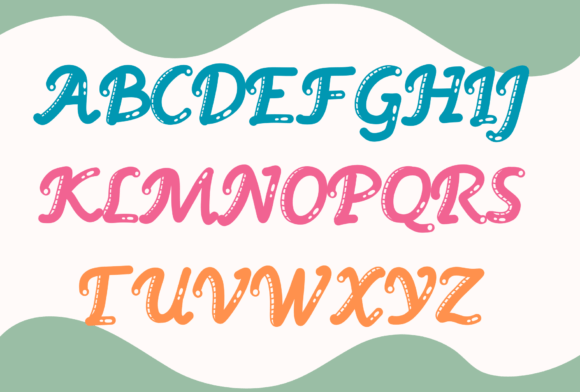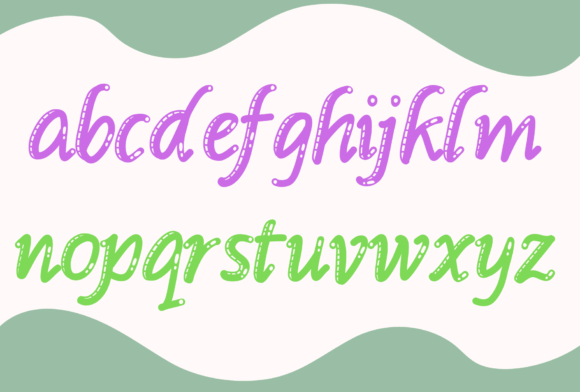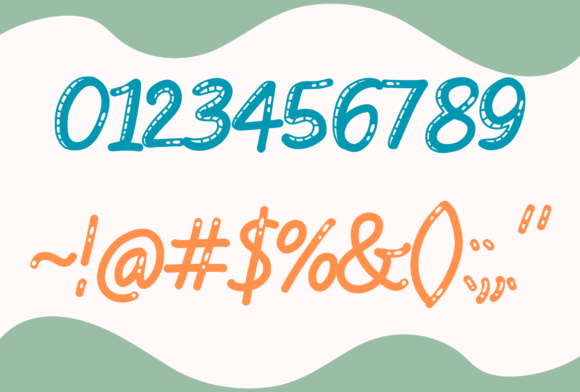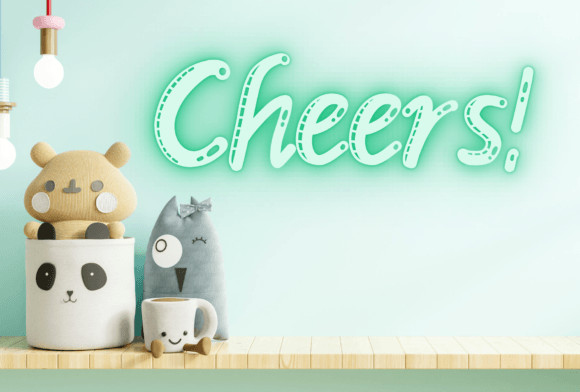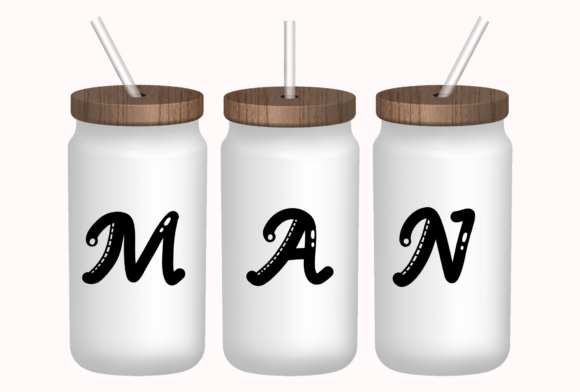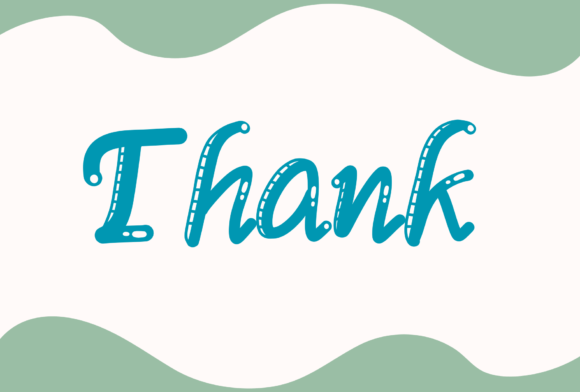
Candy Font: The Sweetest Addition to Your Design Collection
Are you a designer or crafter looking for a font that can add a touch of sweetness and friendliness to your projects? Look no further than the Candy Font! This beautiful, handwritten font is perfect for a wide range of designs, from invitations and greeting cards to branding and packaging.
What is Candy Font?
Candy Font is a sweet and friendly handwritten font that is designed to bring a smile to your face. Its natural and unique style makes it incredibly fitting to a large pool of designs, and the only limit is your imagination! With its playful and whimsical feel, Candy Font is perfect for designers and crafters who want to add a personal touch to their projects.
Characteristics of Candy Font
Candy Font has several characteristics that make it stand out from other fonts. Some of its key features include:
- Handwritten style: Candy Font has a beautiful, handwritten style that gives it a personal and unique feel.
- Sweet and friendly: The font has a sweet and friendly tone that makes it perfect for designs that require a playful touch.
- Natural and unique: Candy Font has a natural and unique style that makes it incredibly fitting to a wide range of designs.
- Highly versatile: The font is highly versatile and can be used for a variety of projects, from invitations and greeting cards to branding and packaging.
Uses of Candy Font
Candy Font is a highly versatile font that can be used for a wide range of projects. Some of the most popular uses of the font include:
- Invitations and greeting cards: Candy Font is perfect for creating beautiful and unique invitations and greeting cards for special occasions.
- Branding and packaging: The font can be used to create custom branding and packaging for businesses, including logos, labels, and more.
- Signs and posters: Candy Font can be used to create eye-catching signs and posters for events, sales, and promotions.
- Digital graphics: The font can be used to create custom digital graphics, including social media graphics, blog posts, and more.
Why Choose Candy Font?
There are many reasons why designers and crafters choose Candy Font for their projects. Some of the top reasons include:
- Unique and creative: Candy Font is a unique and creative font that can help you stand out from the crowd.
- Easy to read: The font is easy to read, even at small sizes, making it perfect for a wide range of projects.
- Highly customizable: Candy Font can be customized to fit your specific needs, including adjusting the size, color, and style.
Tips for Using Candy Font
Here are a few tips for using Candy Font in your projects:
- Use it sparingly: Candy Font is a bold and playful font, so use it sparingly to avoid overwhelming your design.
- Pair it with other fonts: The font pairs well with other fonts, so experiment with different combinations to find the perfect look.
- Adjust the size and color: Adjust the size and color of the font to fit your specific needs and design style.
Candy Font is a sweet and friendly handwritten font that is perfect for designers and crafters who want to add a personal touch to their projects. With its natural and unique style, highly versatile design, and affordable price, Candy Font is a great addition to any design collection. Whether you’re creating invitations, branding, or digital graphics, Candy Font is sure to bring a smile to your face and a touch of sweetness to your designs.